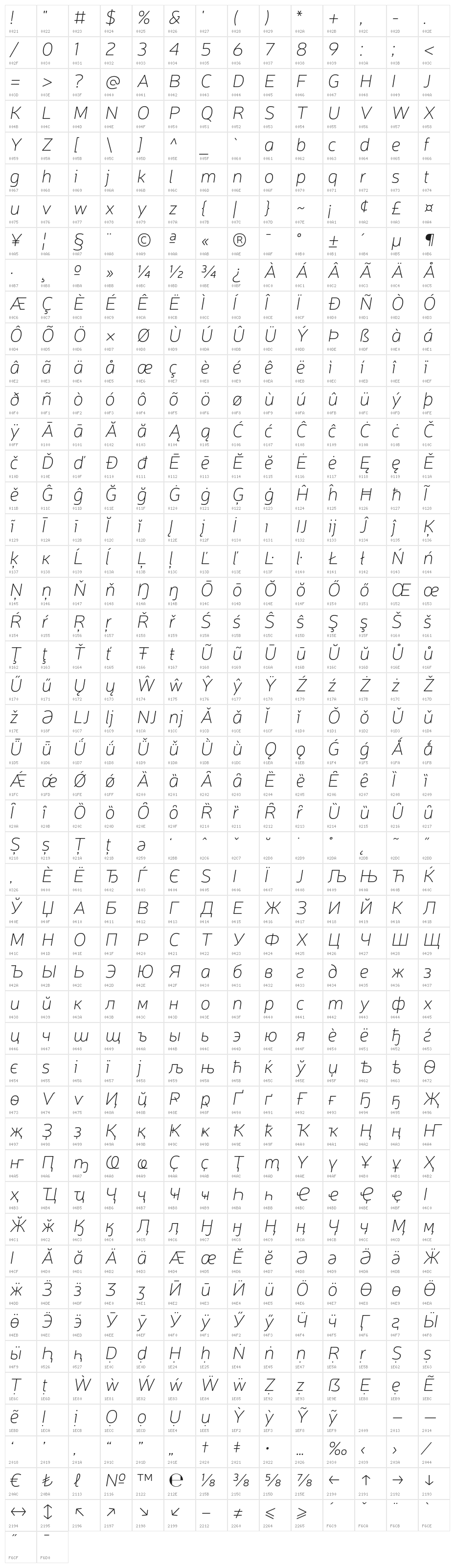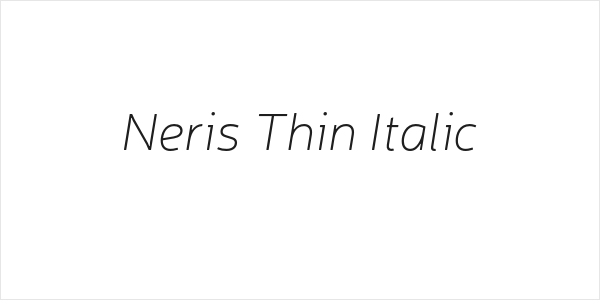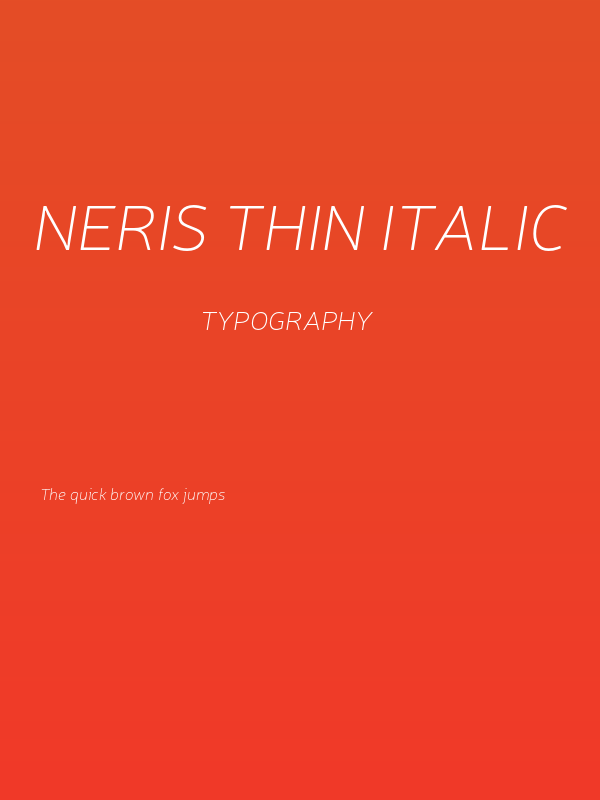
Neris Thin Italic Font
Neris Thin Italic Description
This font features a sleek and modern design with a thin, elegant stroke. The italic style adds a dynamic and sophisticated touch, making it suitable for contemporary design projects. The characters are well-proportioned with a slight slant, enhancing readability while maintaining a stylish appearance. The font includes a full set of uppercase and lowercase letters, numerals, and a variety of special characters, making it versatile for various applications. Its clean lines and minimalistic approach make it ideal for projects that require a refined and polished look.
| Proposed Projects | Ideal for branding, editorial design, fashion magazines, and modern web design. |